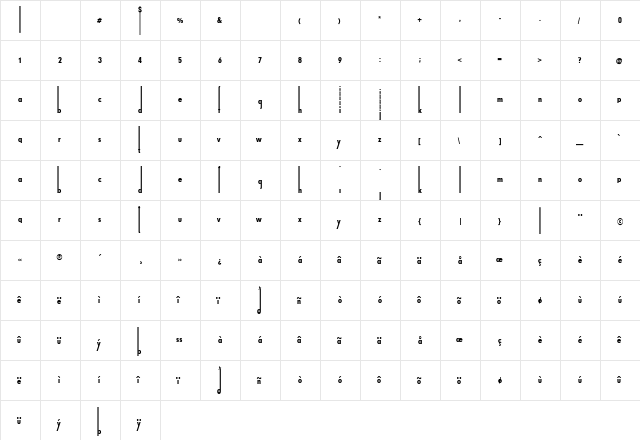
Thiamine Regular
Design Context for Thiamine Typeface
Thiamine offers clean, dependable letterforms without strong stylistic allegiance, making it a practical choice for designers who need flexibility.